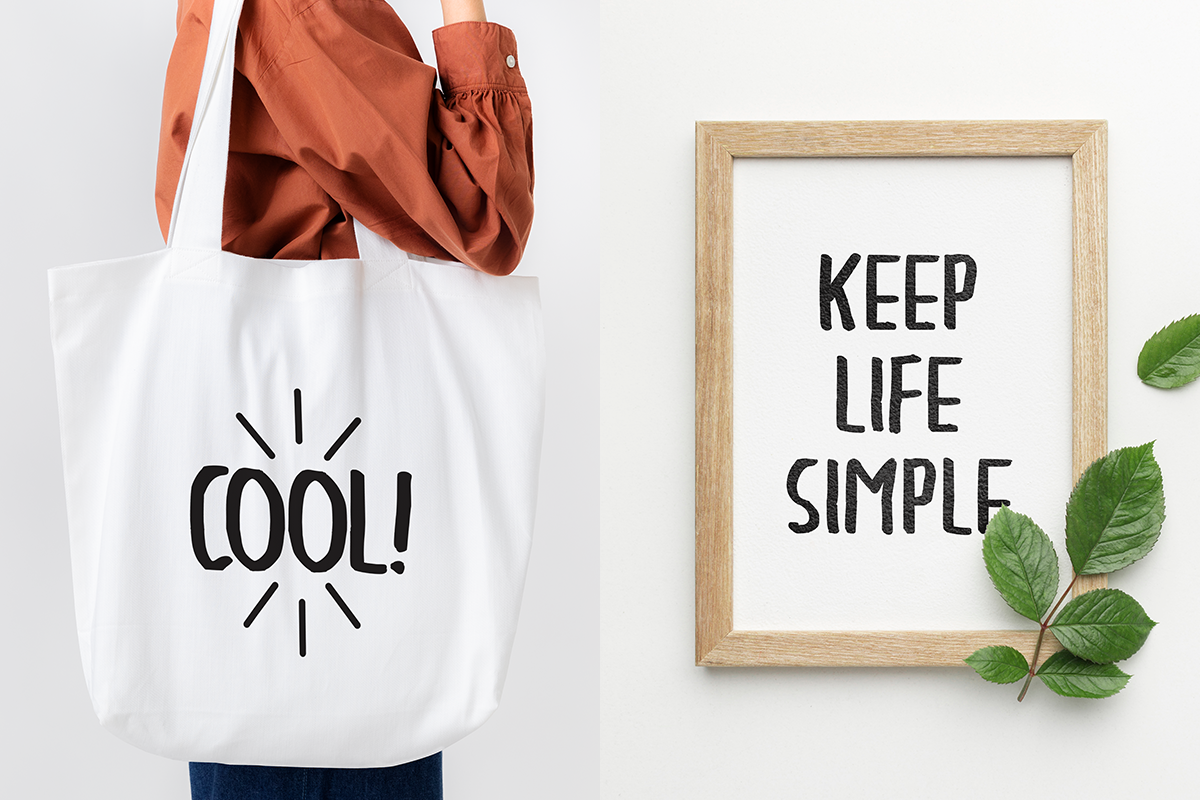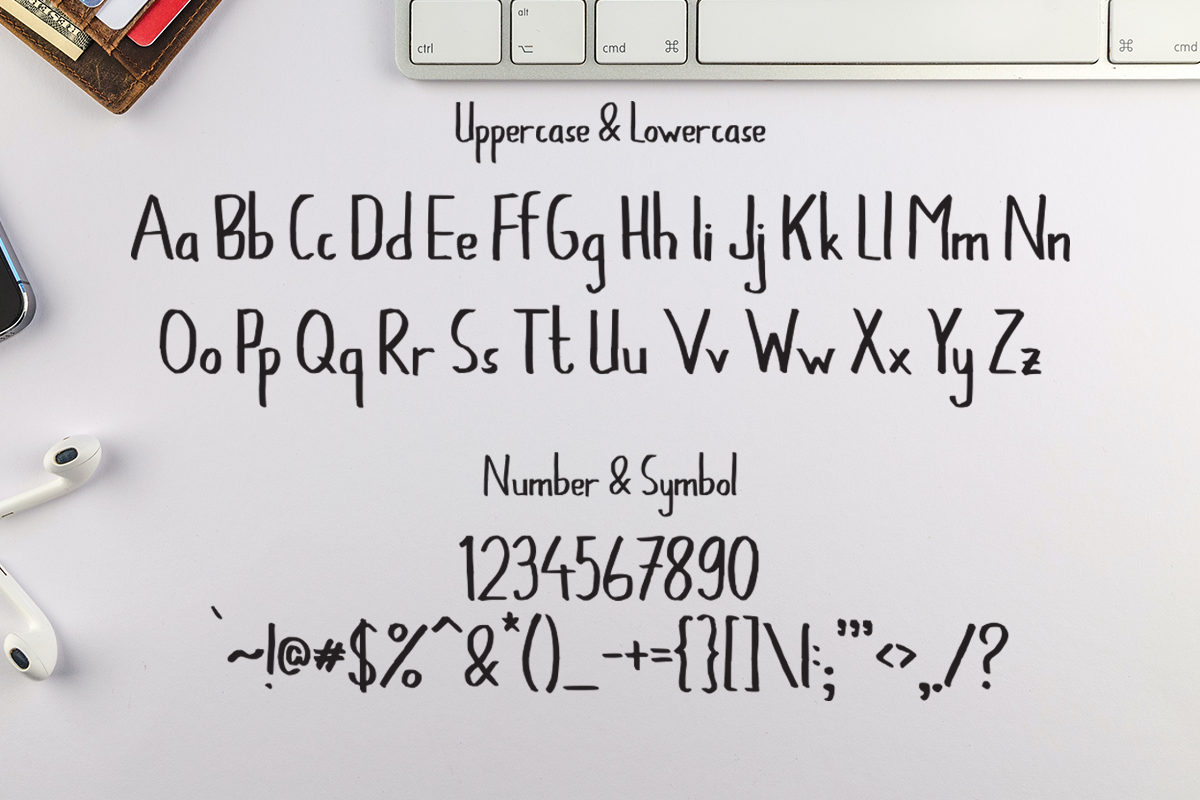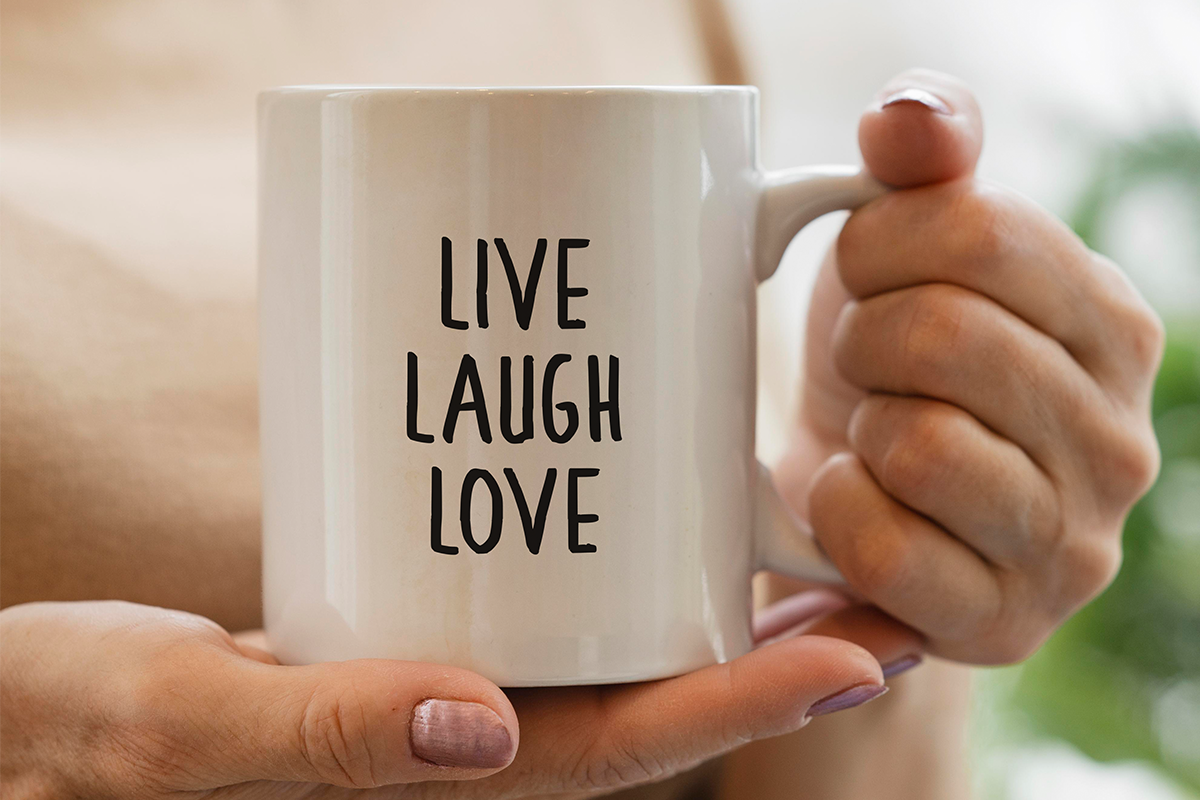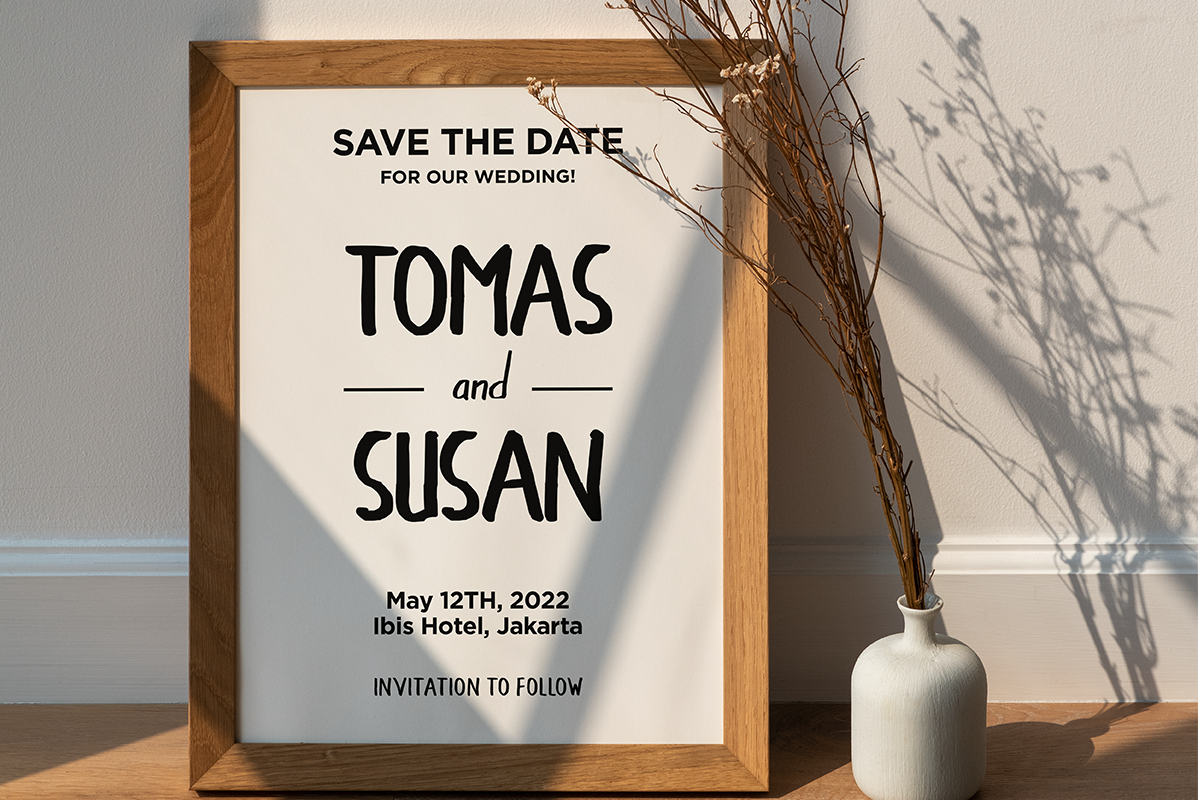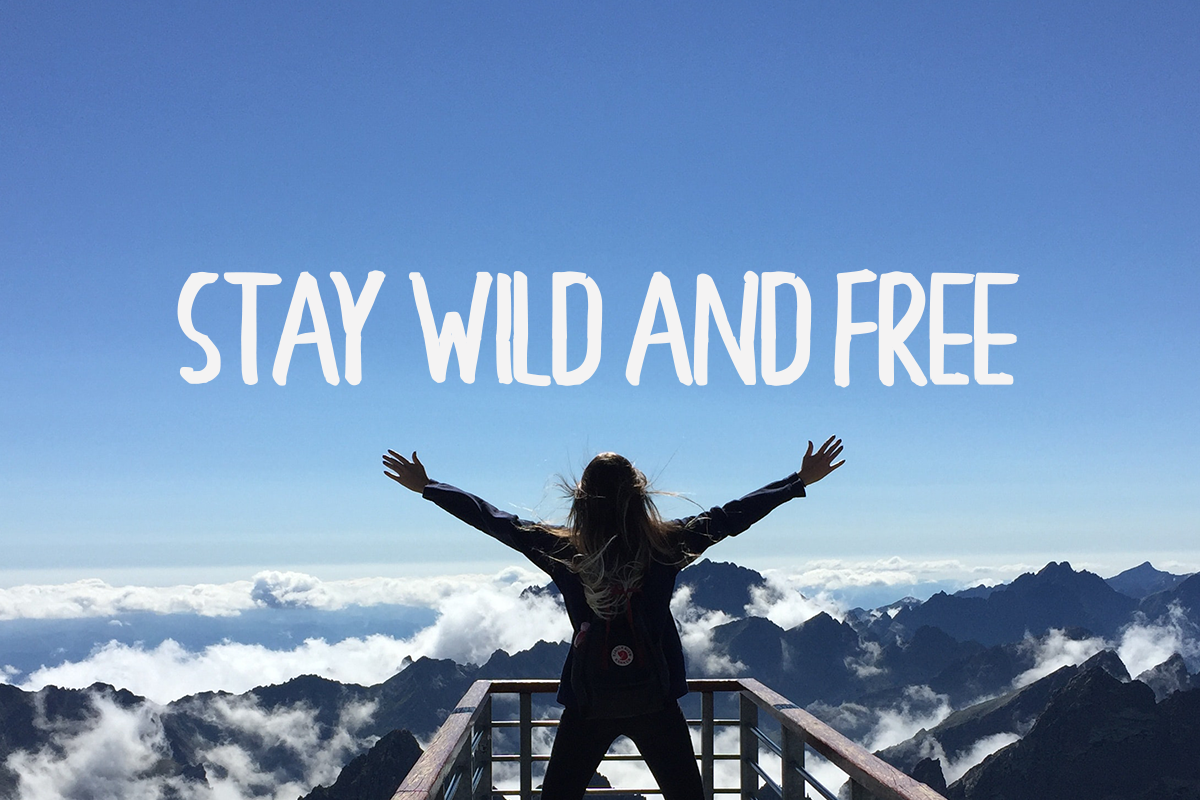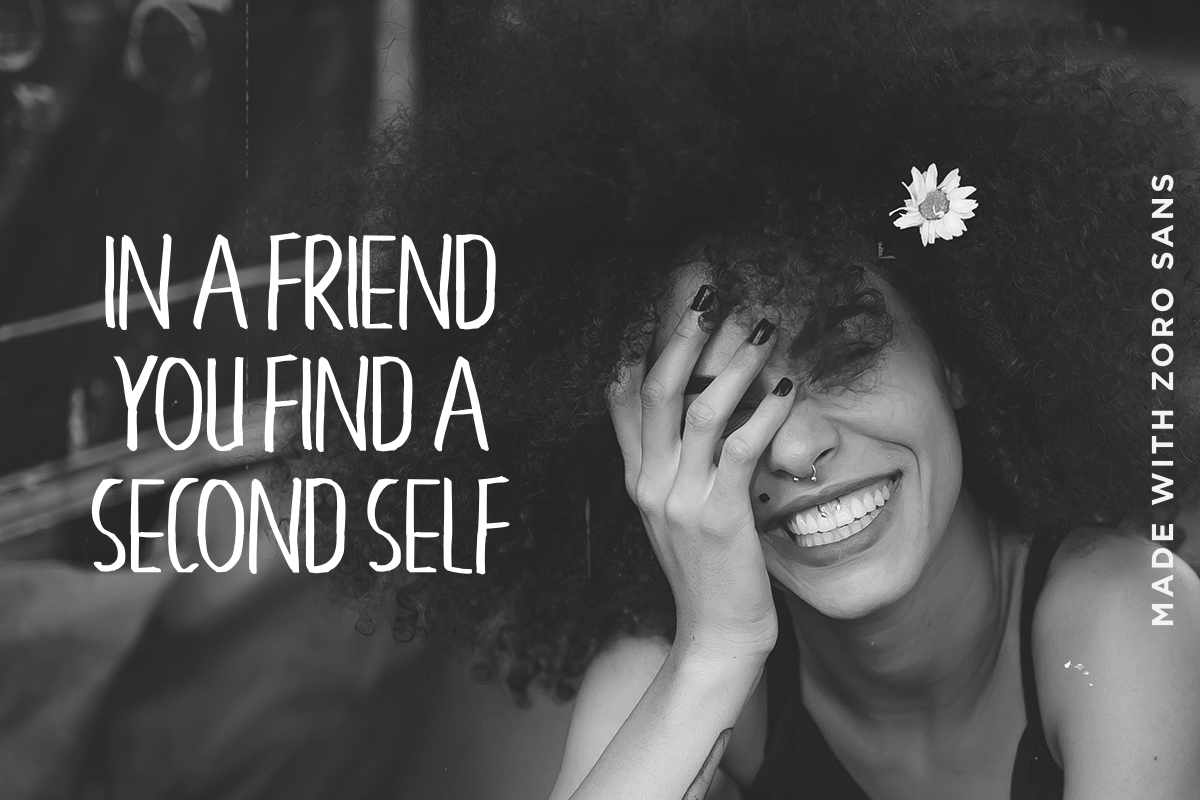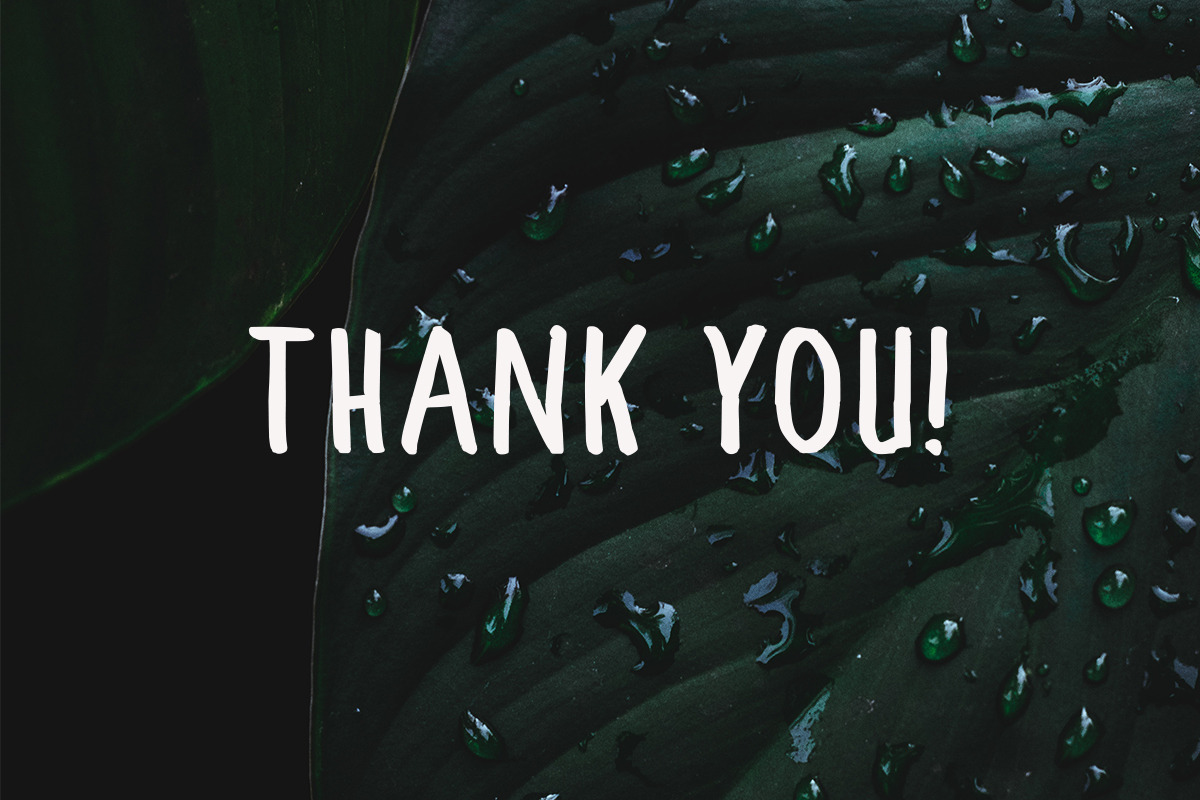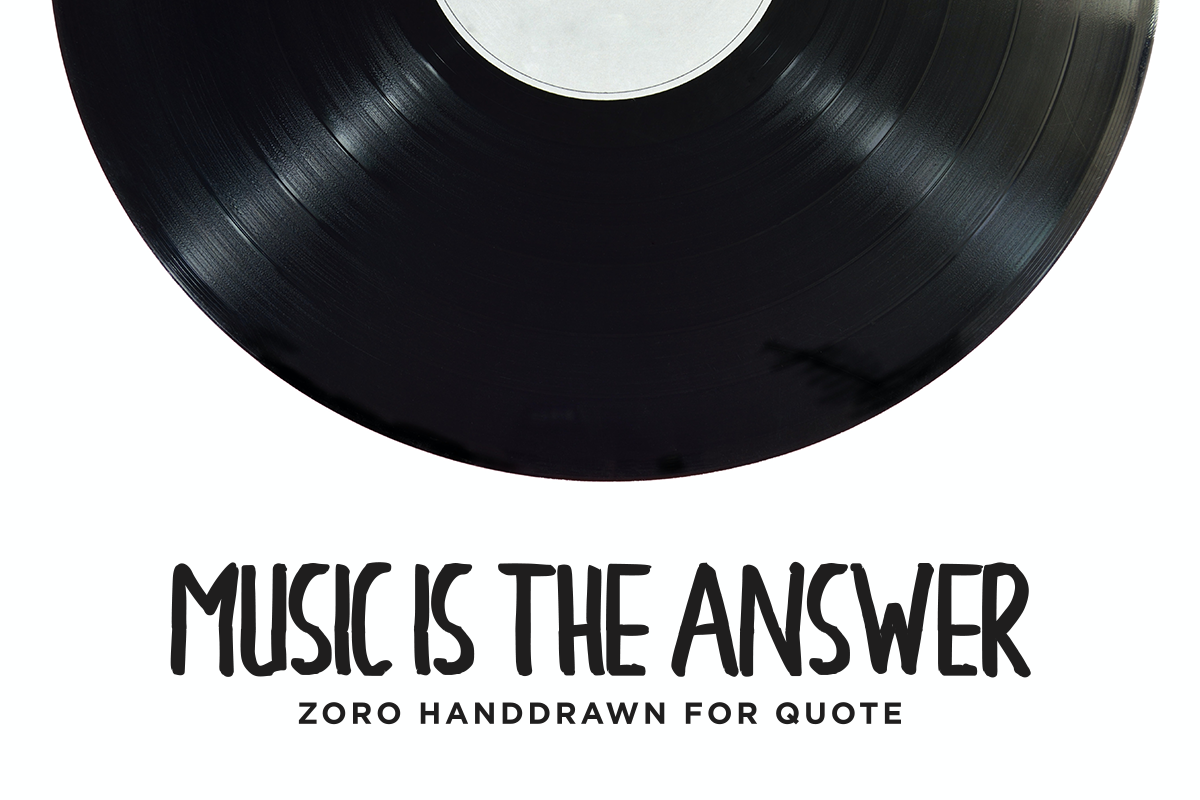
Zoro - Hand-Drawn Quote Sans
Say hello to new handdrawn font, Zoro!
Zoro is a handdrawn font. It has an authentic texture – giving it a look as if it just left your pen. This font is especially perfect for instagram and pinterest quotes.
- Letters, numbers, punctuation, multilingual support, alternate and ligature
This font can be used for anything such as T-Shirt designs, phone cases, greeting cards, invitations, mugs and so much more! Get creative!